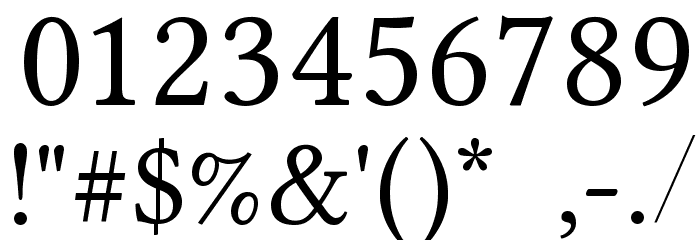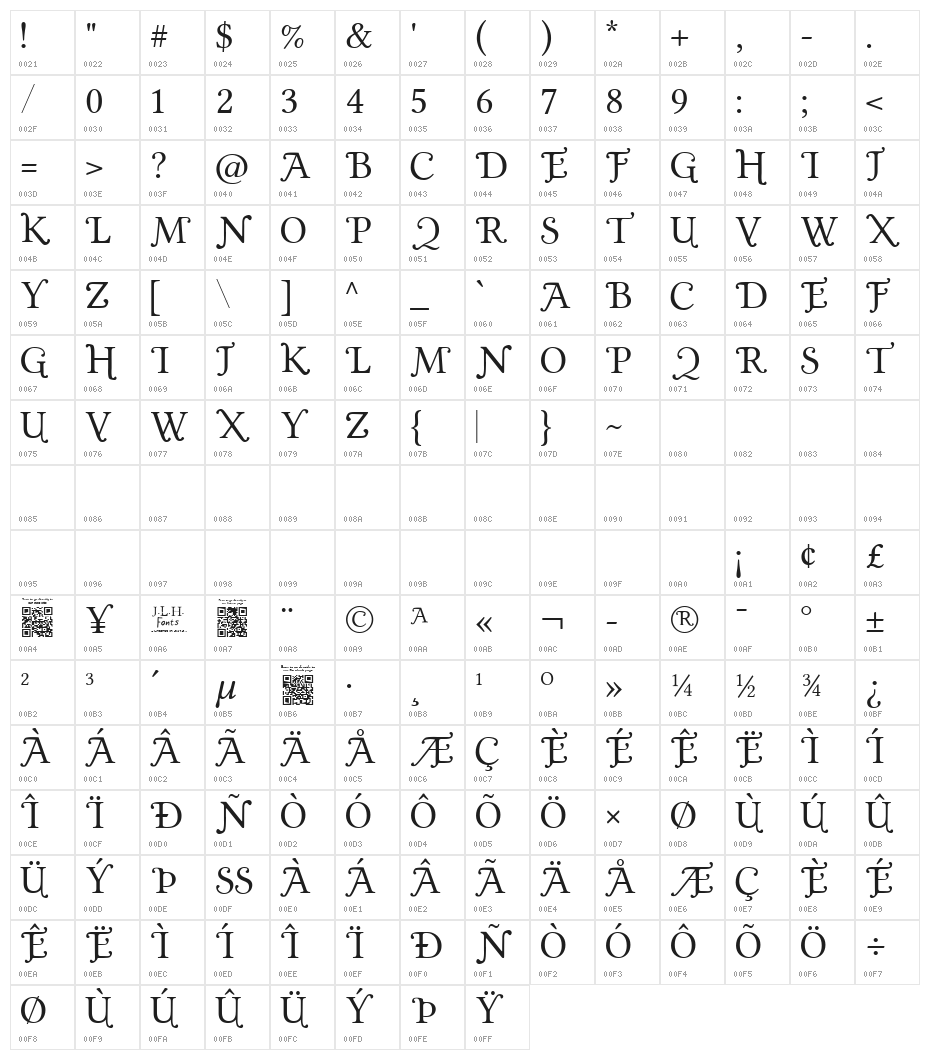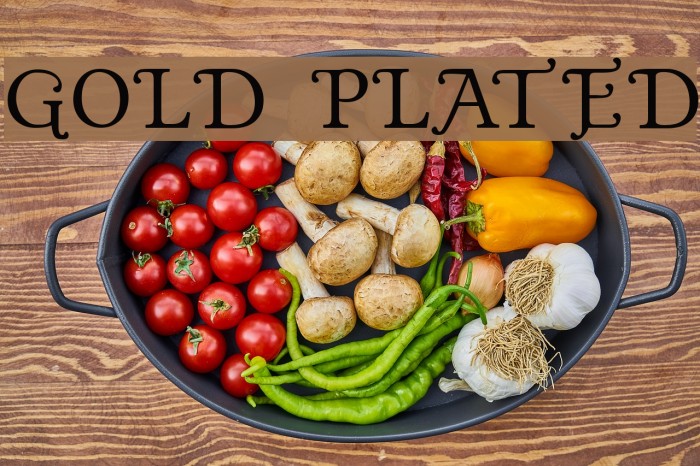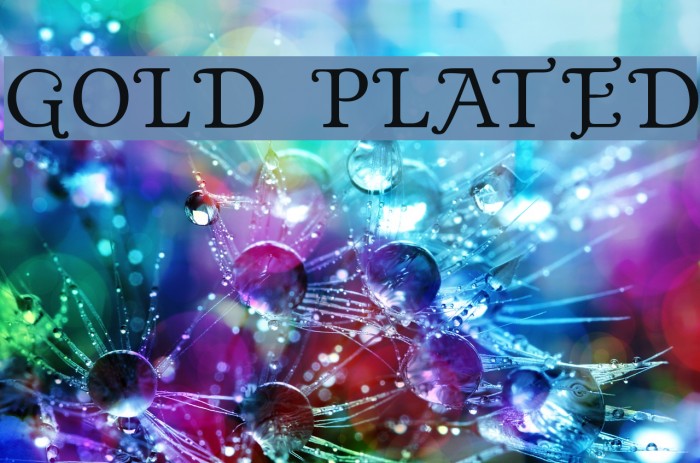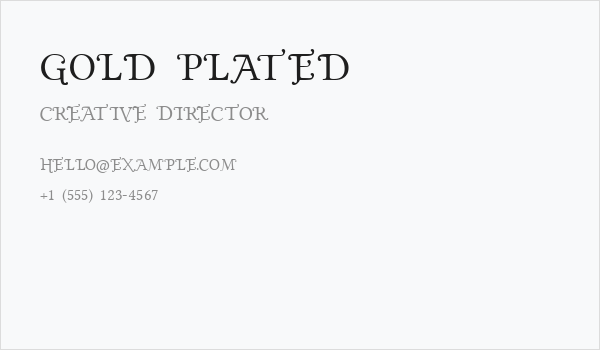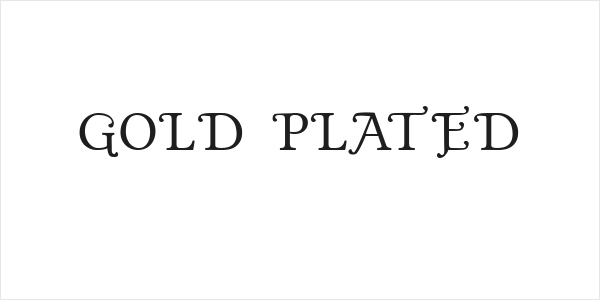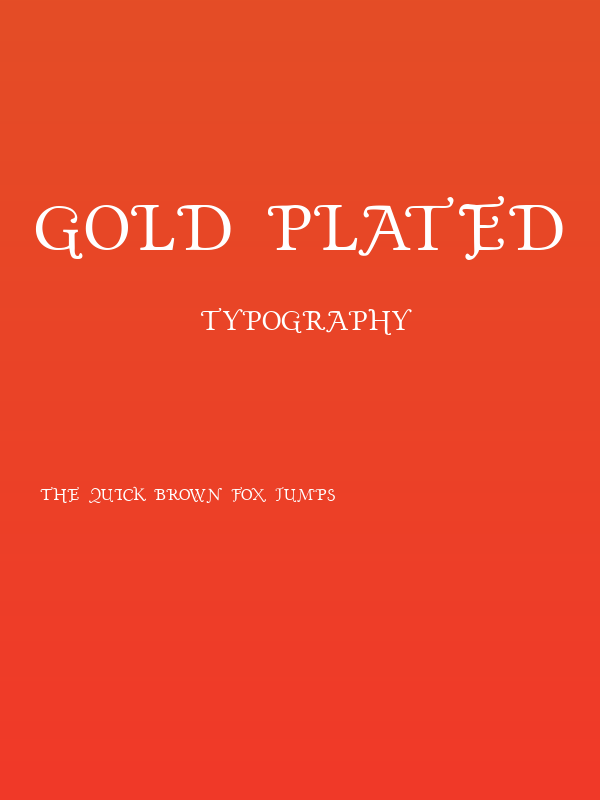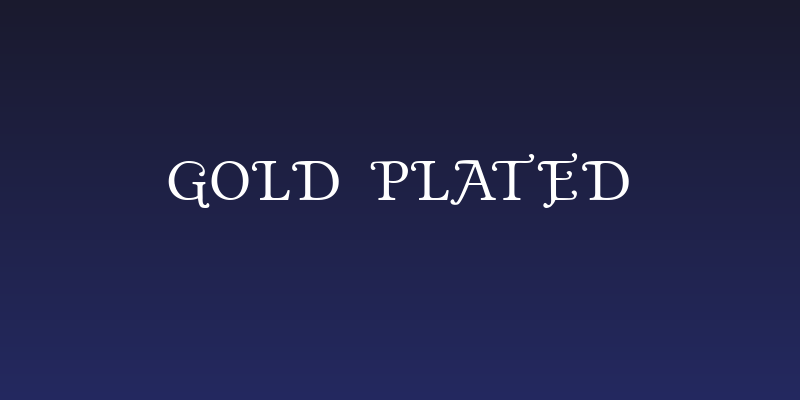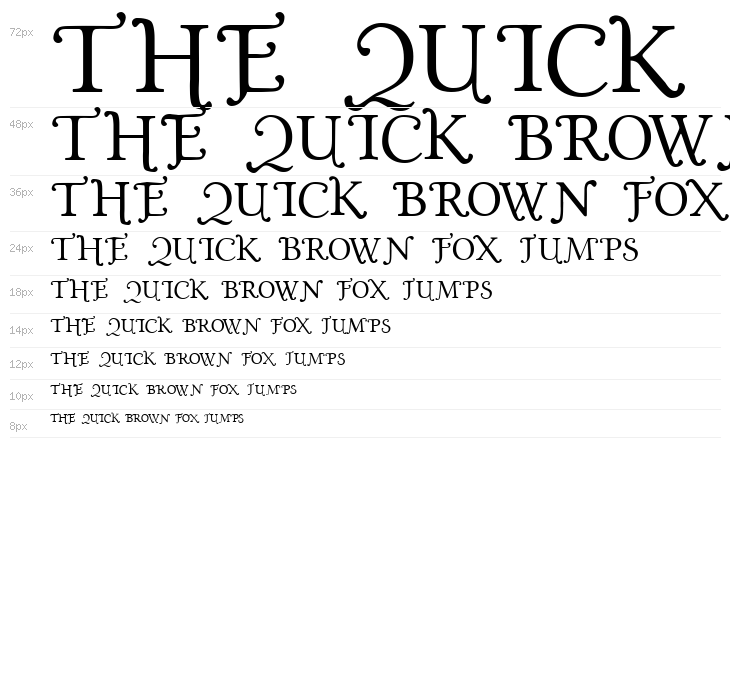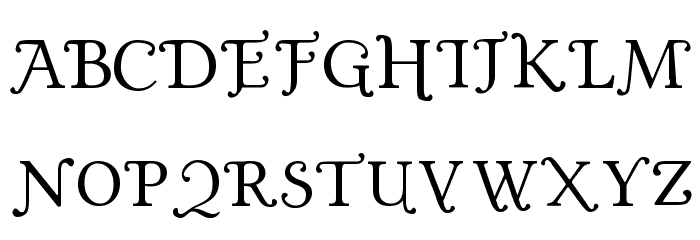
Gold Plated Font
Gold Plated Description
This font features a classic serif style with elegant, flowing curves and distinct serifs that give it a sophisticated appearance. The uppercase letters are bold and commanding, while the lowercase letters maintain a consistent style that complements the overall design. The numerals are clear and easy to read, with a slight flair that adds character. Special characters are well-integrated, maintaining the font's cohesive look. The font's design is reminiscent of traditional typesetting, making it suitable for projects that require a touch of elegance and formality.